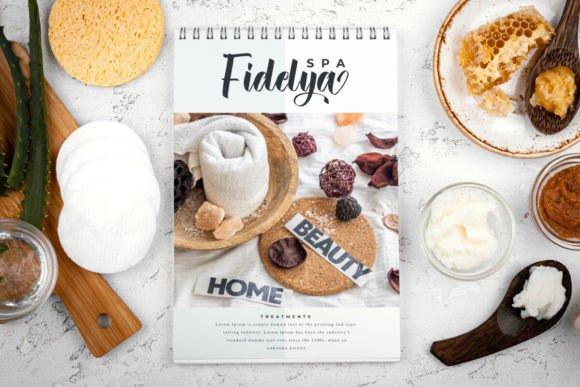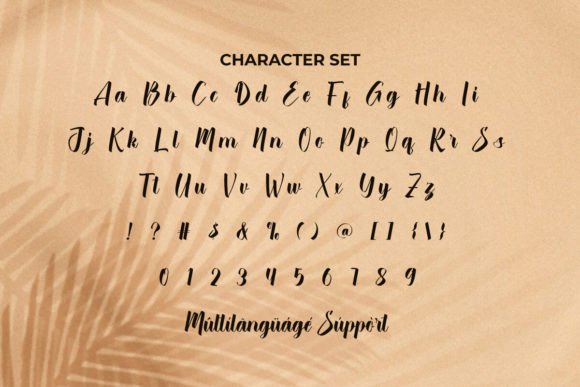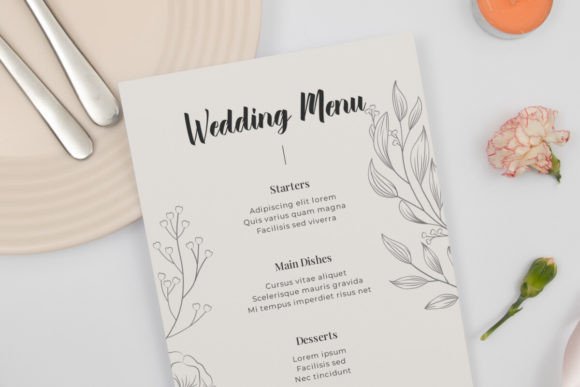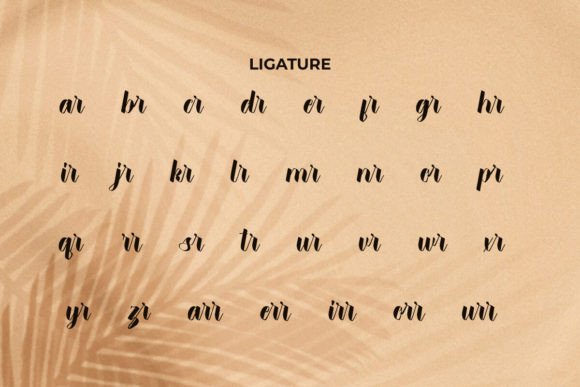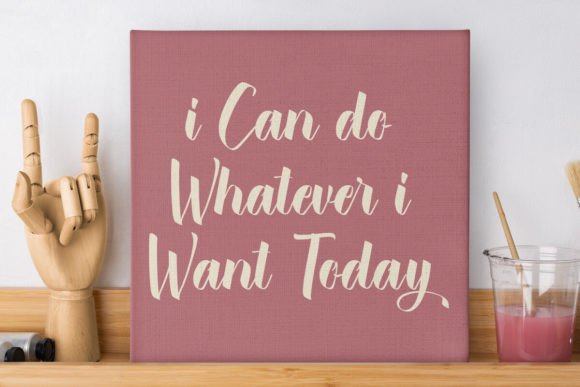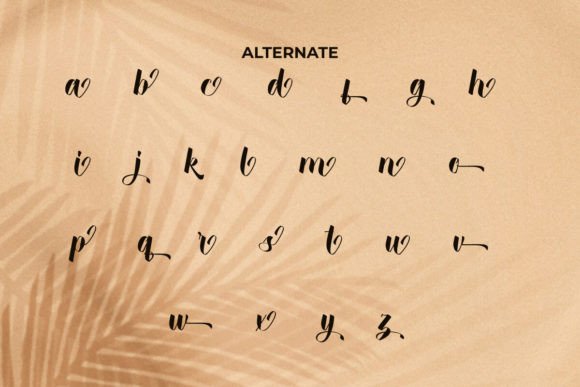
Introduction to Green Marshal Font
Green Marshal Font is a modern calligraphy font.
This font is made up of bold fine lines that connect beautifully and still easy to read This font has modern appearance making it suitable for many industries, such as beauty product, café, event or wedding organizer, fashion, florist, homeware, printing, publishing, salon and spa, and more.